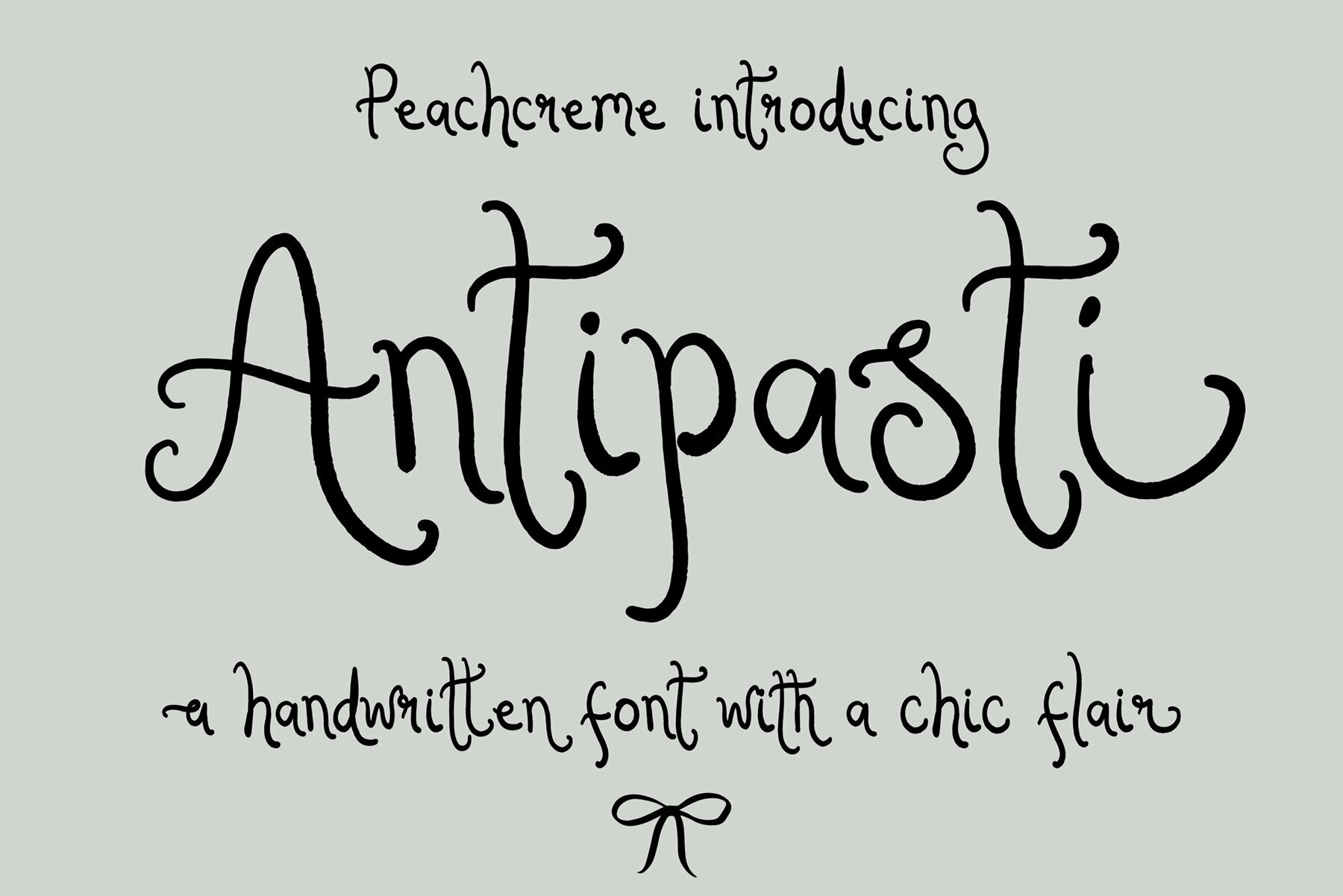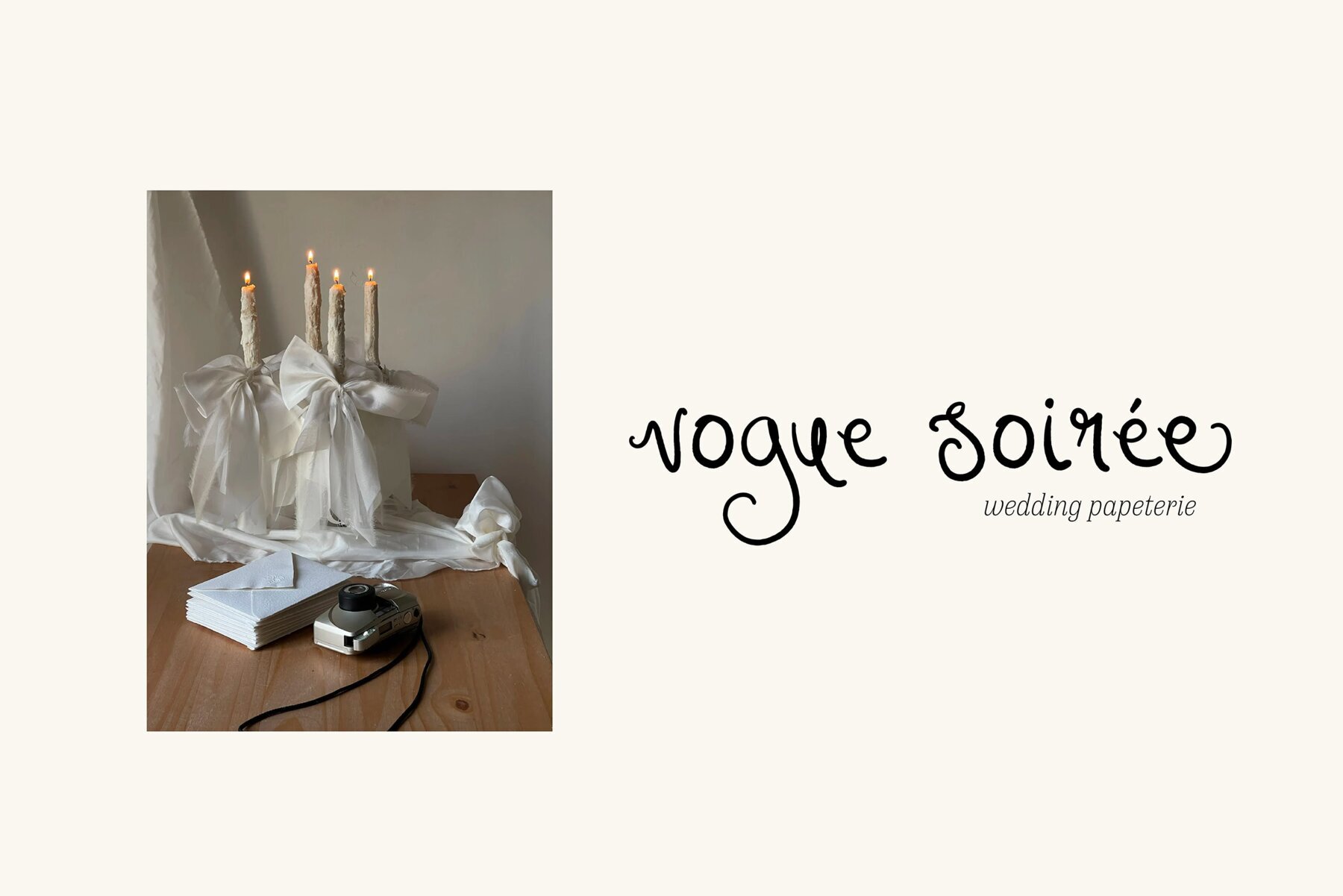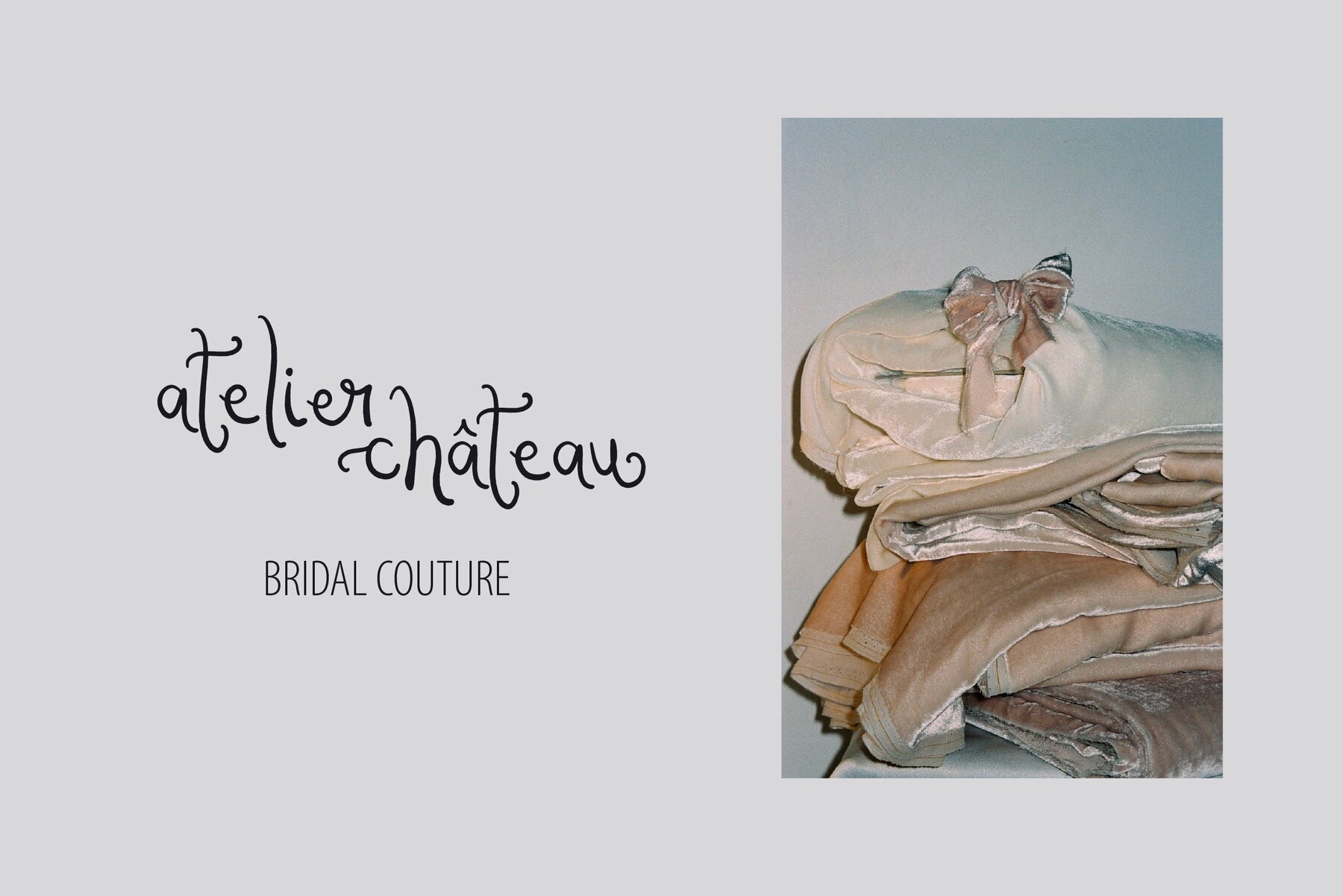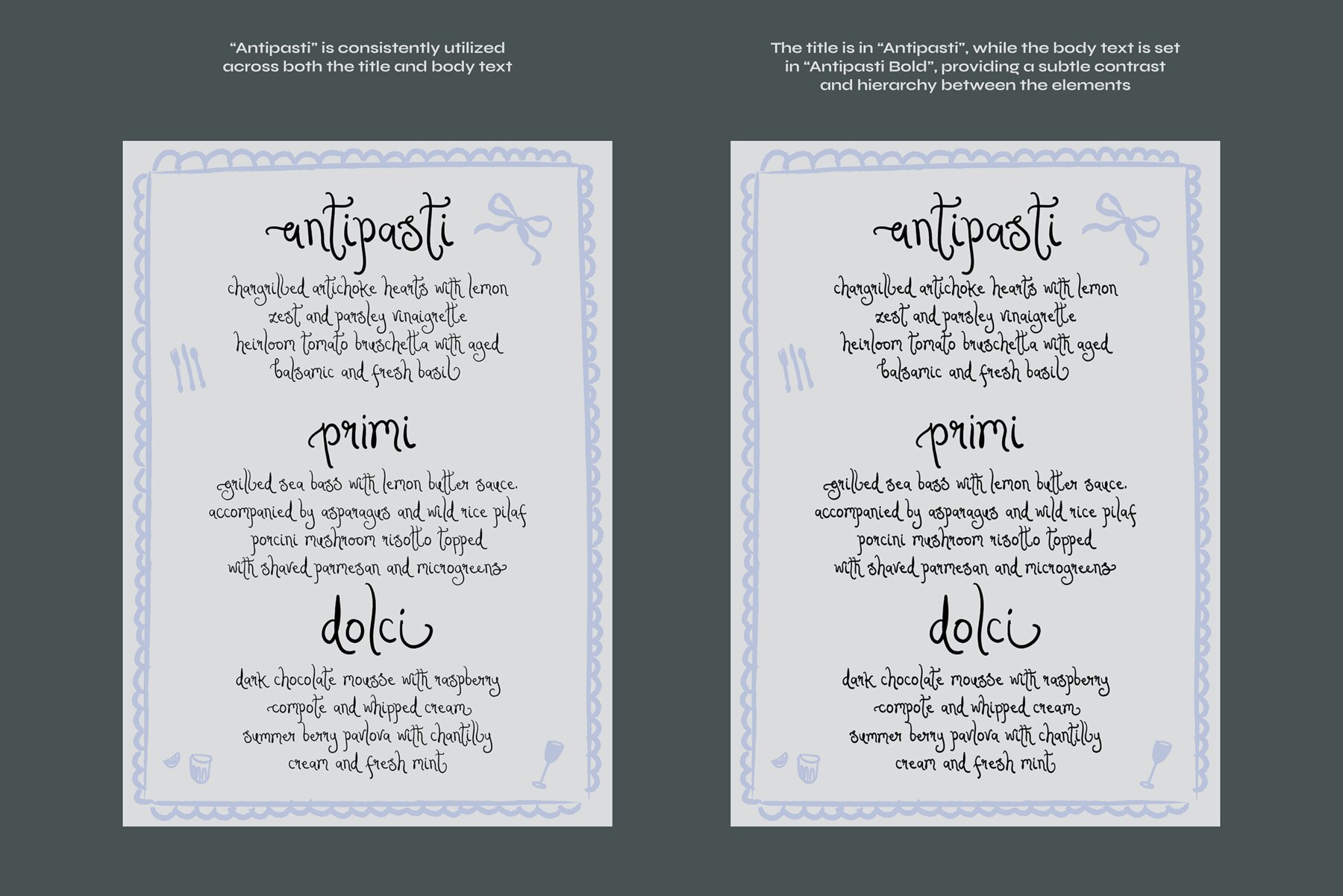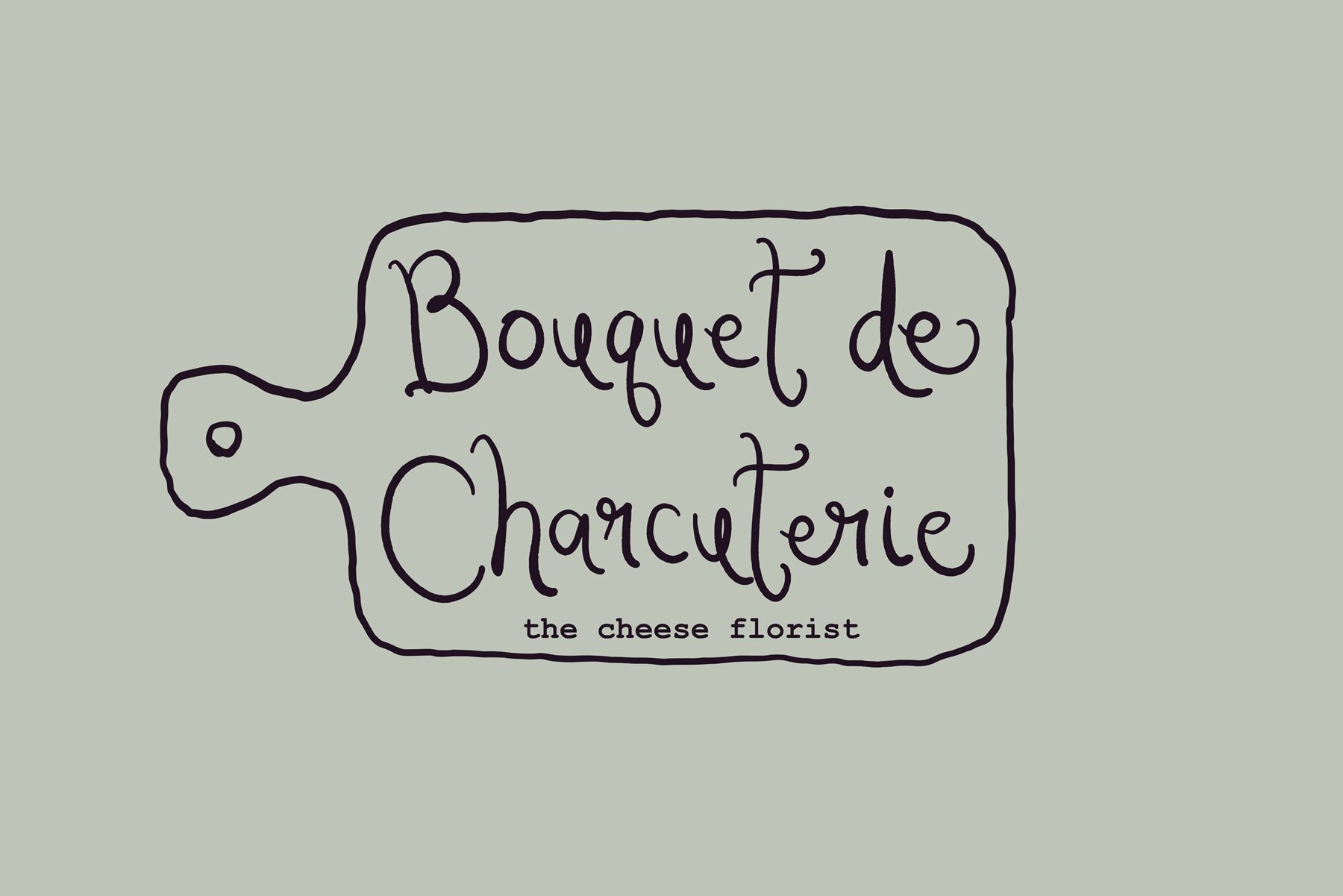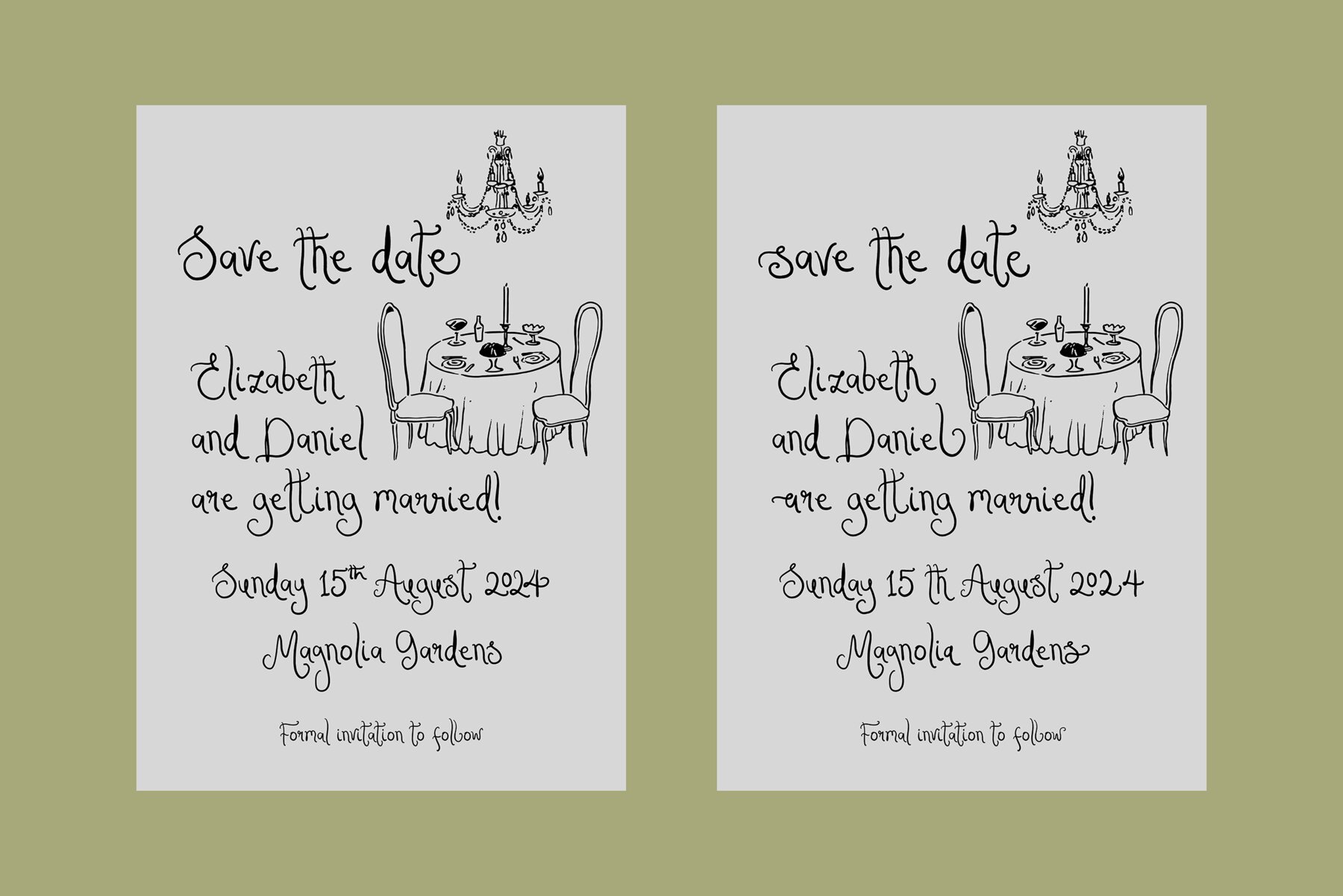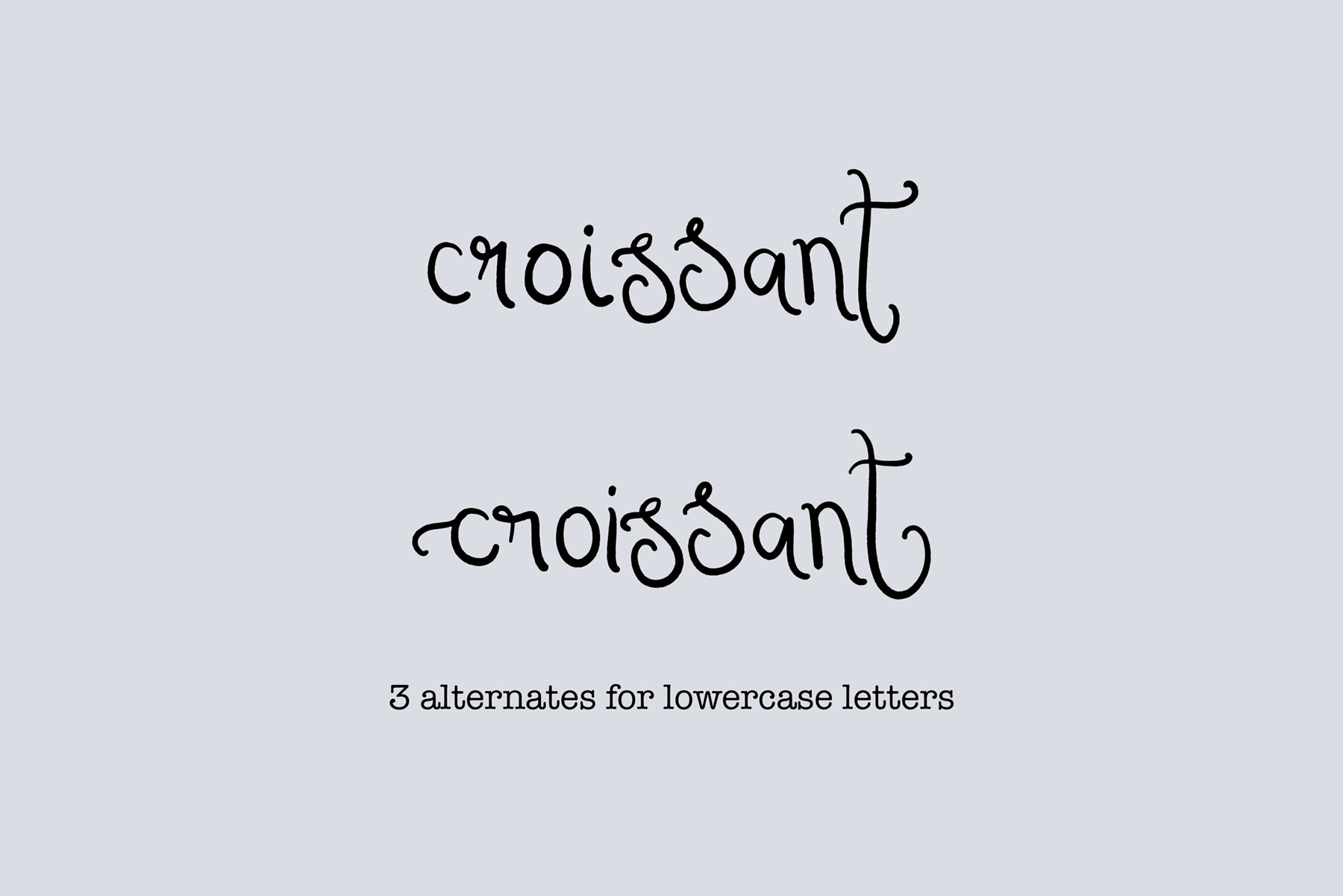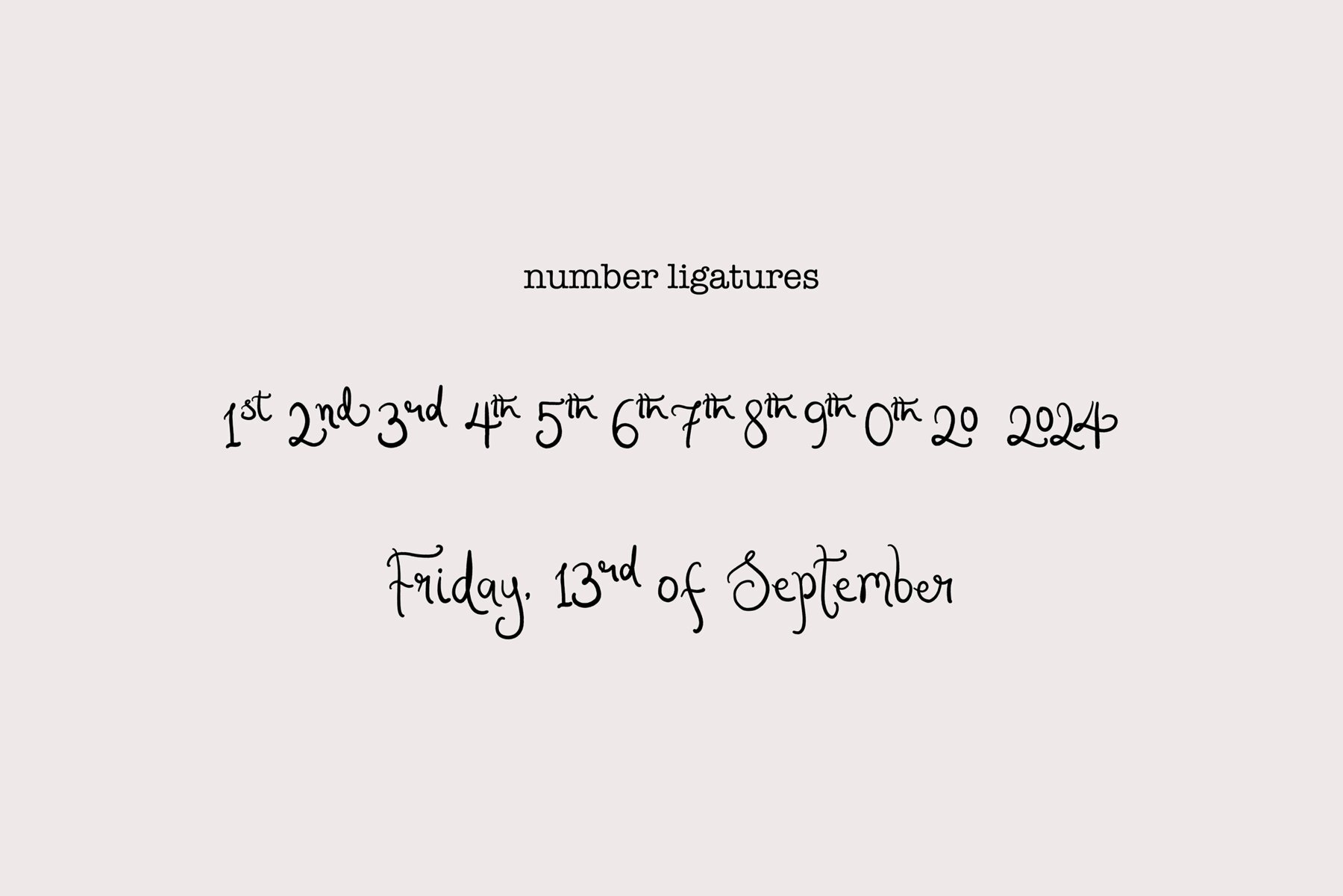
Antipasti Font
"Antipasti" seamlessly blends the charm of handwritten script with the clarity of modern design, making it a versatile choice for a variety of applications. Its two distinct weights cater to different design needs, whether you're looking to add a delicate touch to wedding stationery or a robust presence to branding materials. Each lowercase character is accompanied by three stylistic alternates: a beginning swash, an ending swash, and a standalone alternate, allowing for creative customization in your designs.
Perfect for both personal and professional use, "Antipasti" brings a unique flair to your typography. Its stylistic options offer designers the ability to create dynamic and engaging text treatments that stand out. With its blend of elegance and modernity, this typeface is a valuable asset for any designer's toolkit, providing endless possibilities for text-based projects.